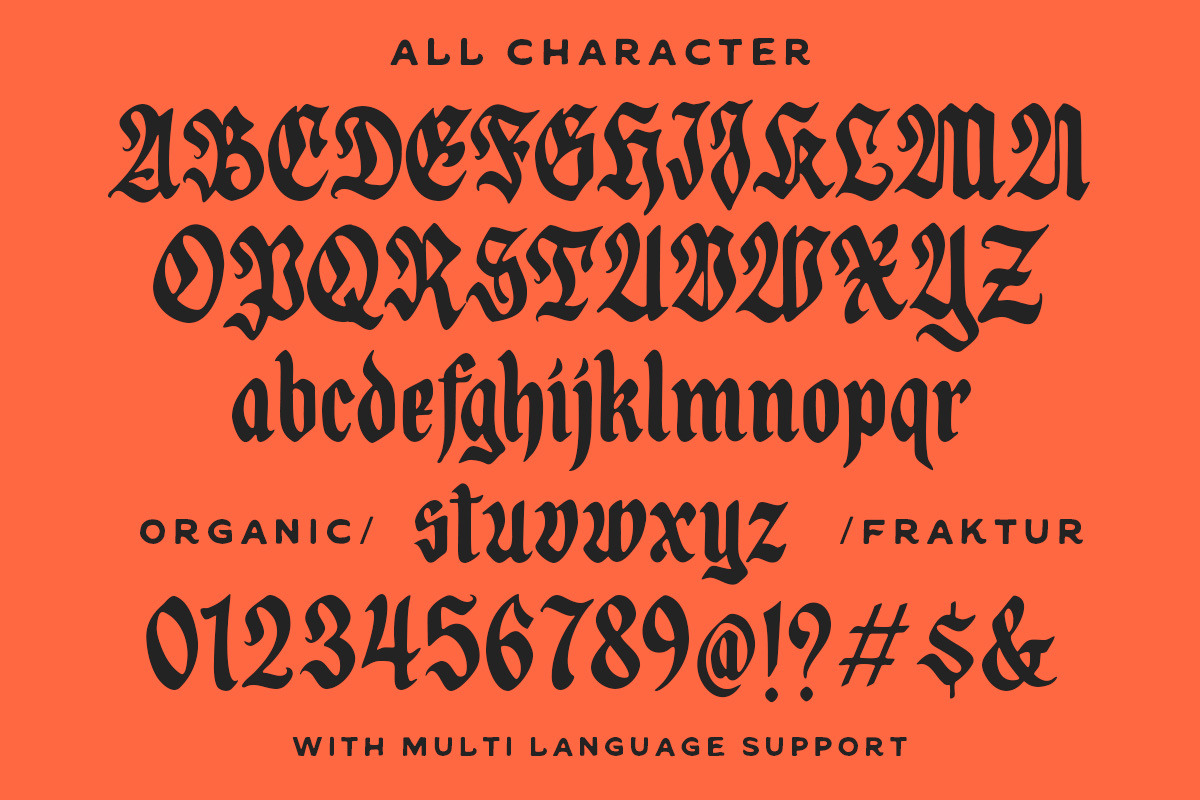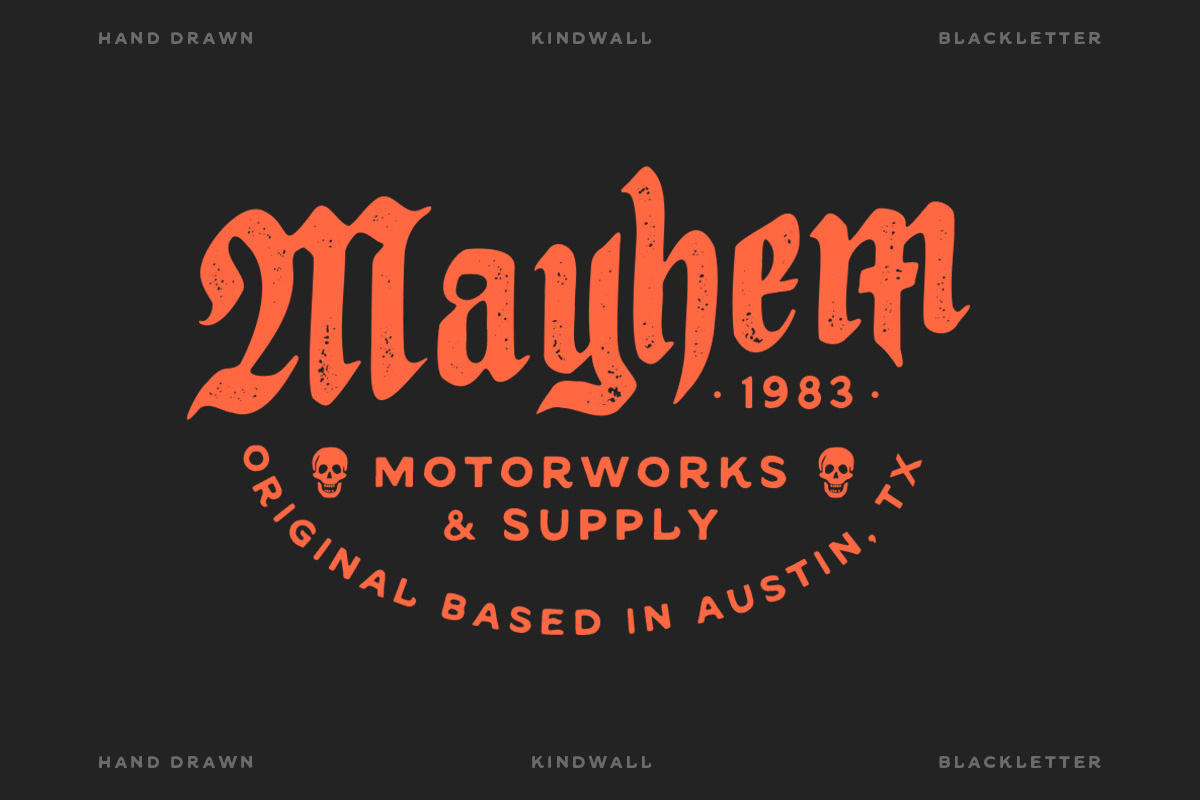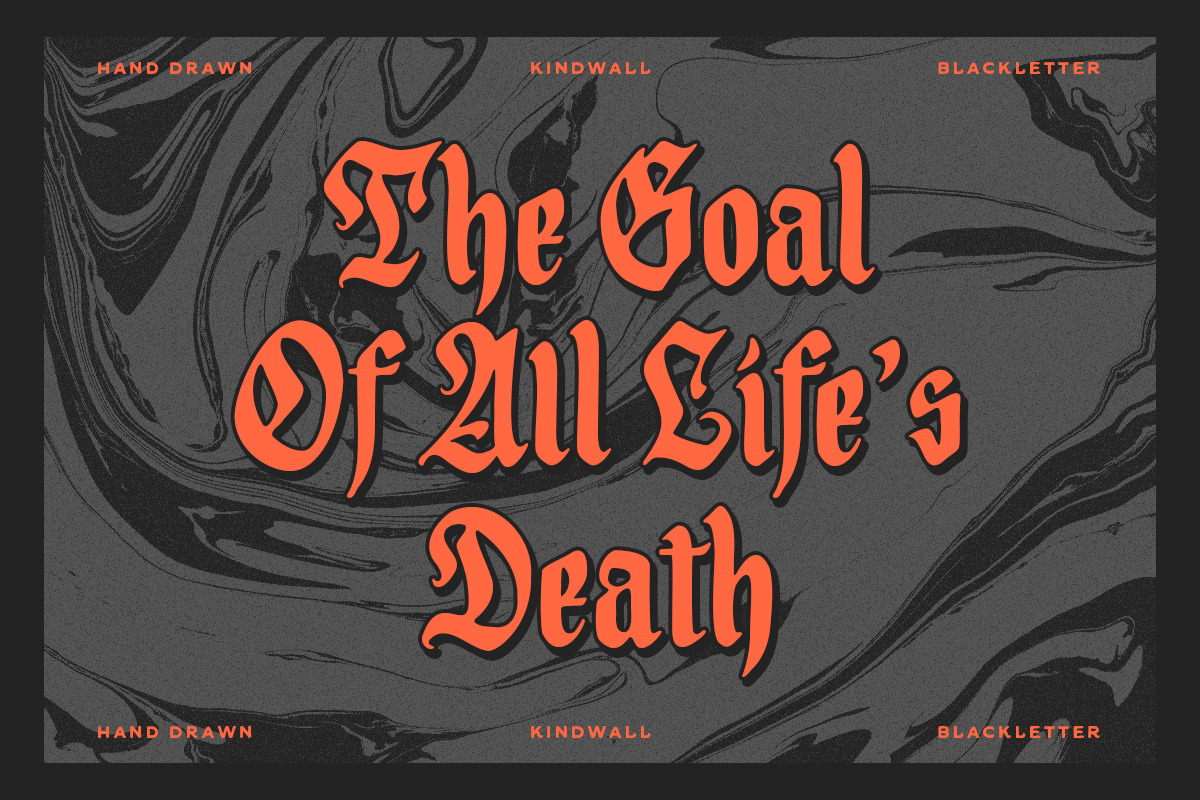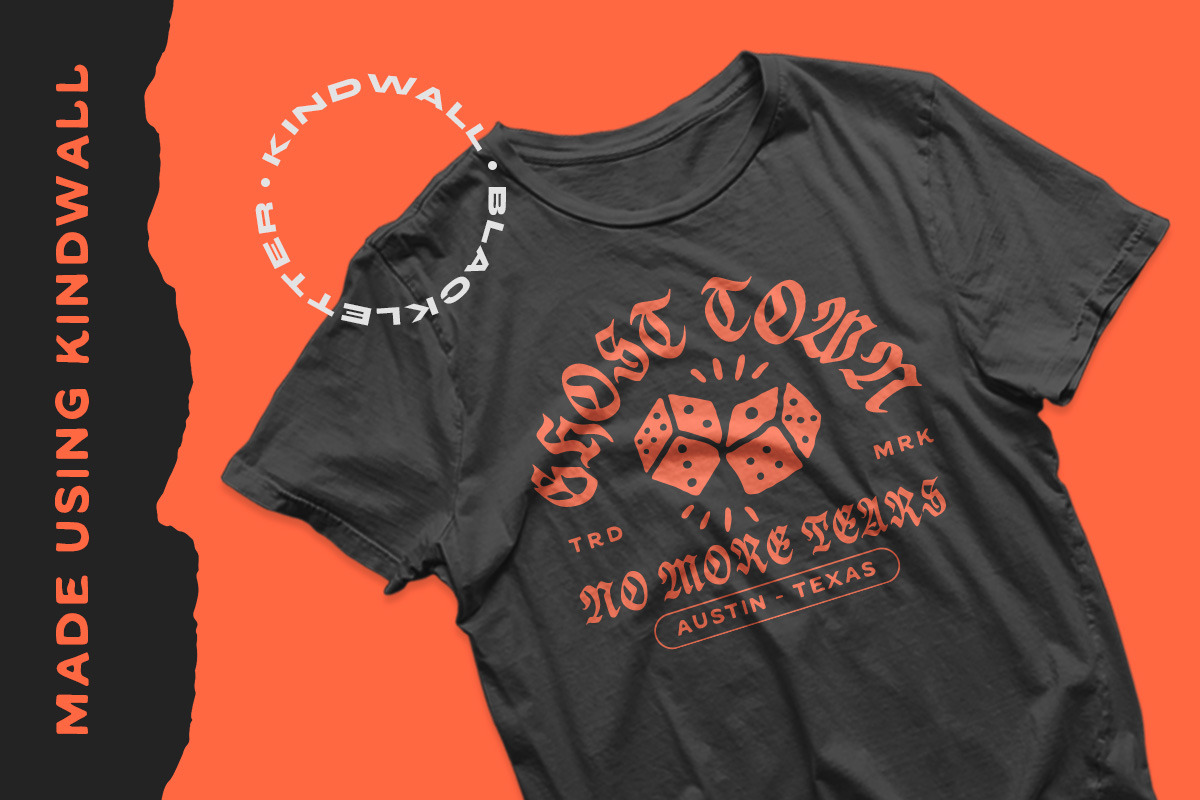
IC Kindwall - Organic Blackletter
Kindwall, Fraktur Blackletter is carefully hand-drawn and organically crafted, boasting two captivating styles: Regular & Stamped. This font is tailor-made for commanding headlines, captivating packaging, and alluring labels, exuding a robust and assertive persona while exquisitely channeling a vintage aesthetic, characteristic of the esteemed blackletter tradition.